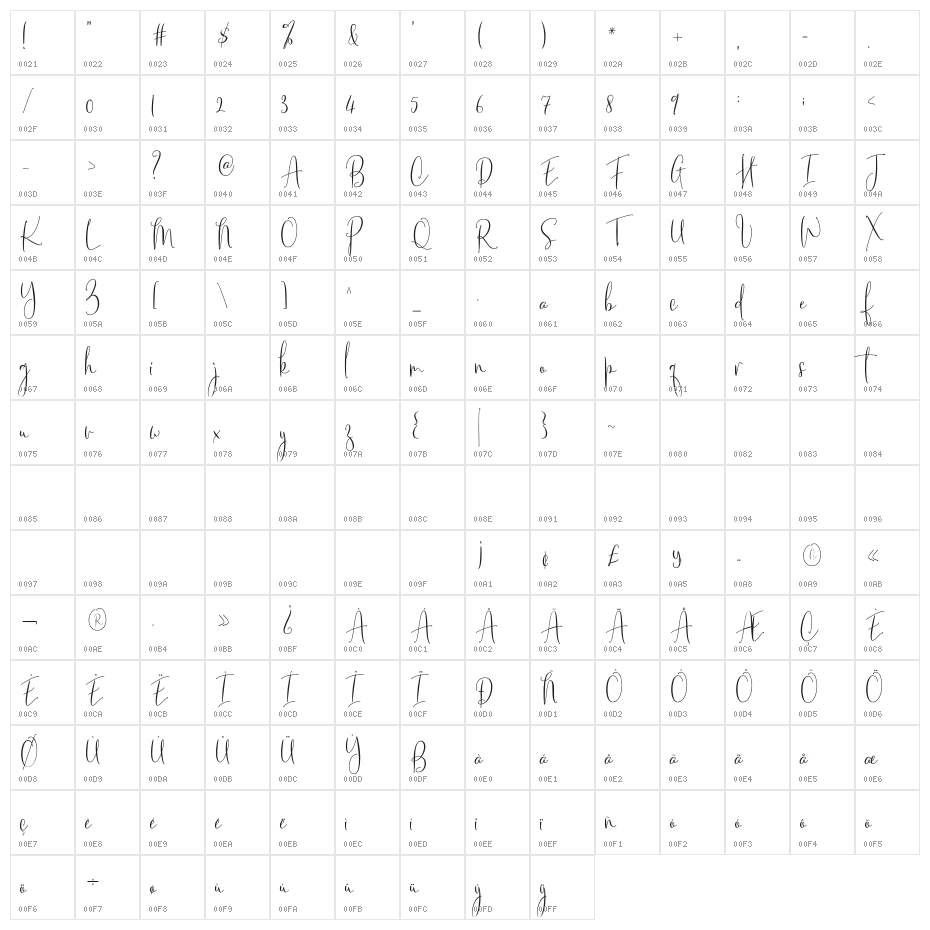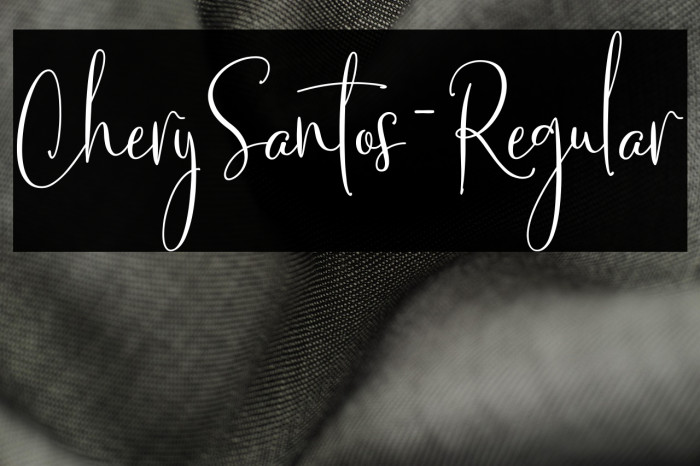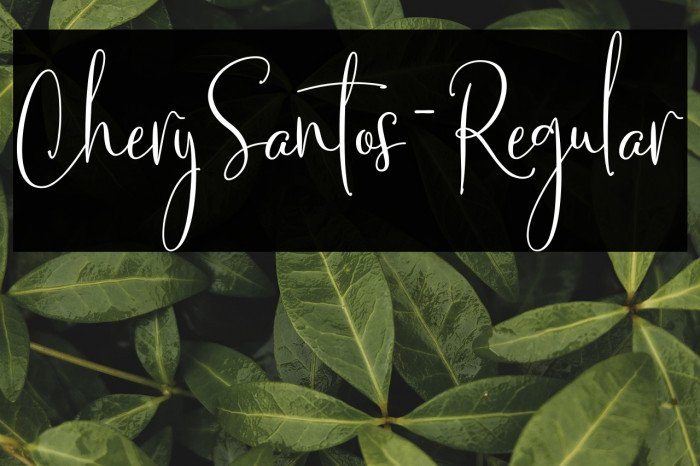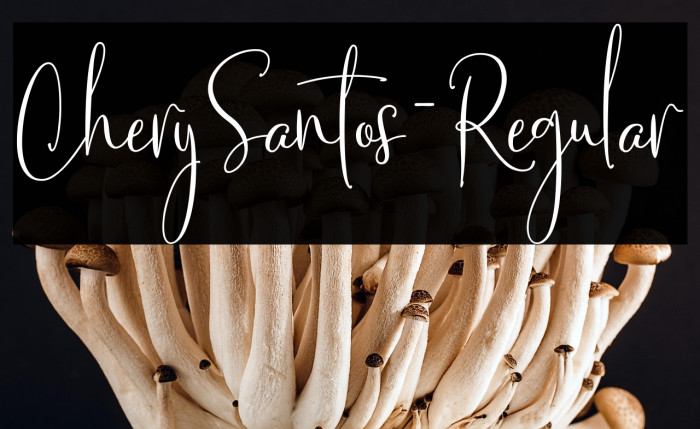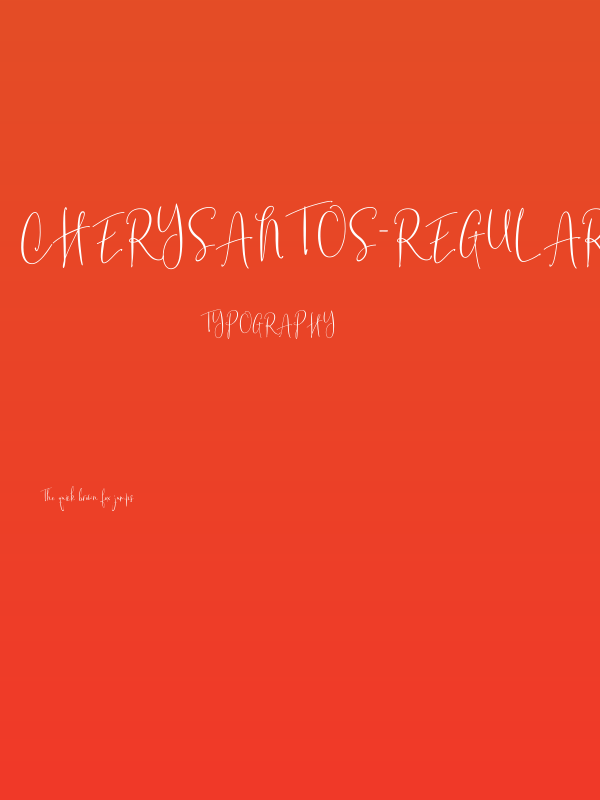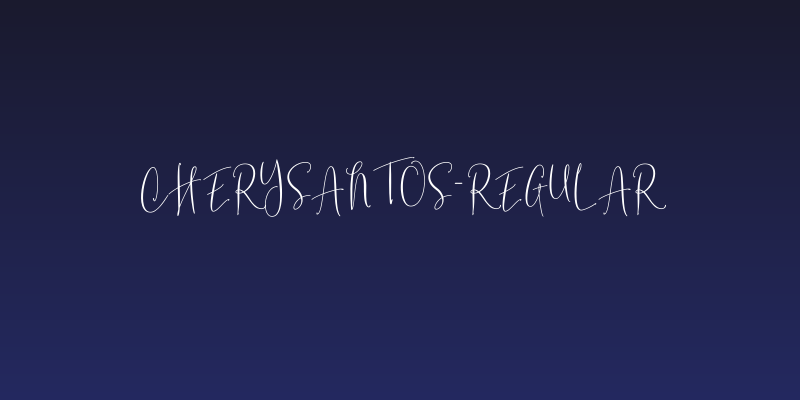
CherySantos-Regular Font
CherySantos-Regular Description
This font features a whimsical and flowing script style, characterized by its elegant, elongated strokes and playful loops. The letters exhibit a hand-drawn quality, with varying line thickness that adds a dynamic and lively feel. The uppercase letters are tall and slender, while the lowercase letters maintain a consistent fluidity, enhancing the overall aesthetic. The numerals and special characters complement the alphabet with their cohesive design, making this font suitable for creative and artistic projects.
| Proposed Projects | Ideal for wedding invitations, greeting cards, branding, and artistic projects requiring a personal touch. |